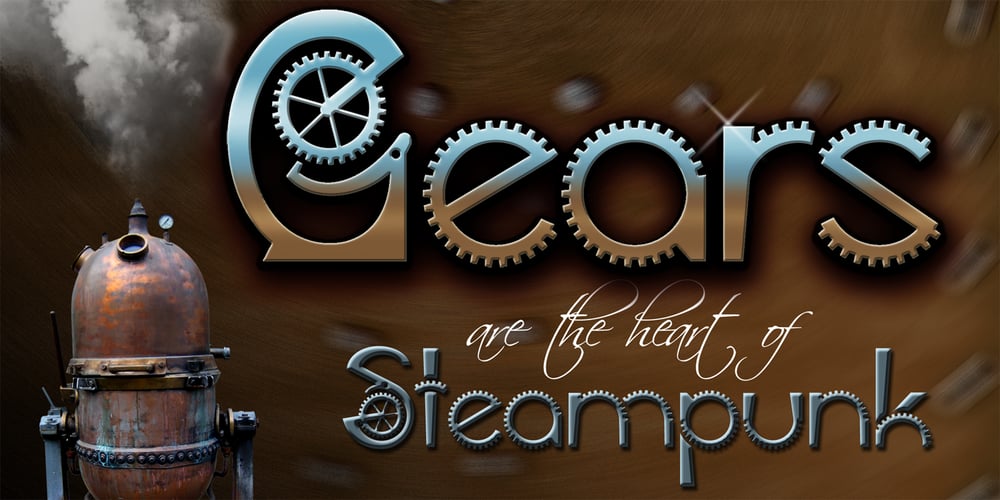
Gears
Gears font
Gears Font Family was designed by Janet Ellis Valdez and published by Janworx. Gears contains 1 styles and family package options. Gears, designed by Janet Valdez of Janworx, was inspired by the popularity of steampunk artwork, for which gears and levers are a defining element. Gears is a single bold typeface, incorporating gears and levers into each glyph in one form or another. It is intended to be used at a large size, and works well in graphics with gradient finishes, textures, and bevels. Lower case letters are uniformly understated, whereas upper case are more elaborate. This typeface is suitable for posters, screen printing, or any general graphics work that requires short words or slogans with high-impact, particularly in a steampunk theme.